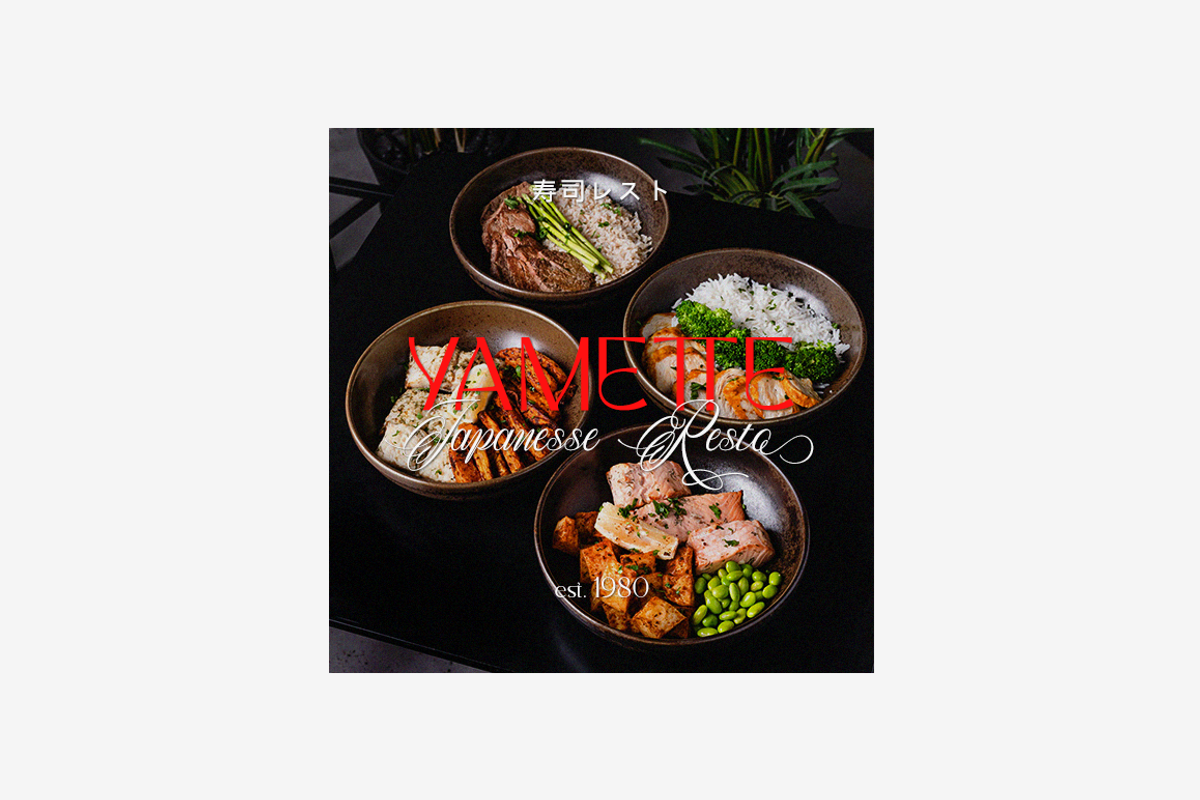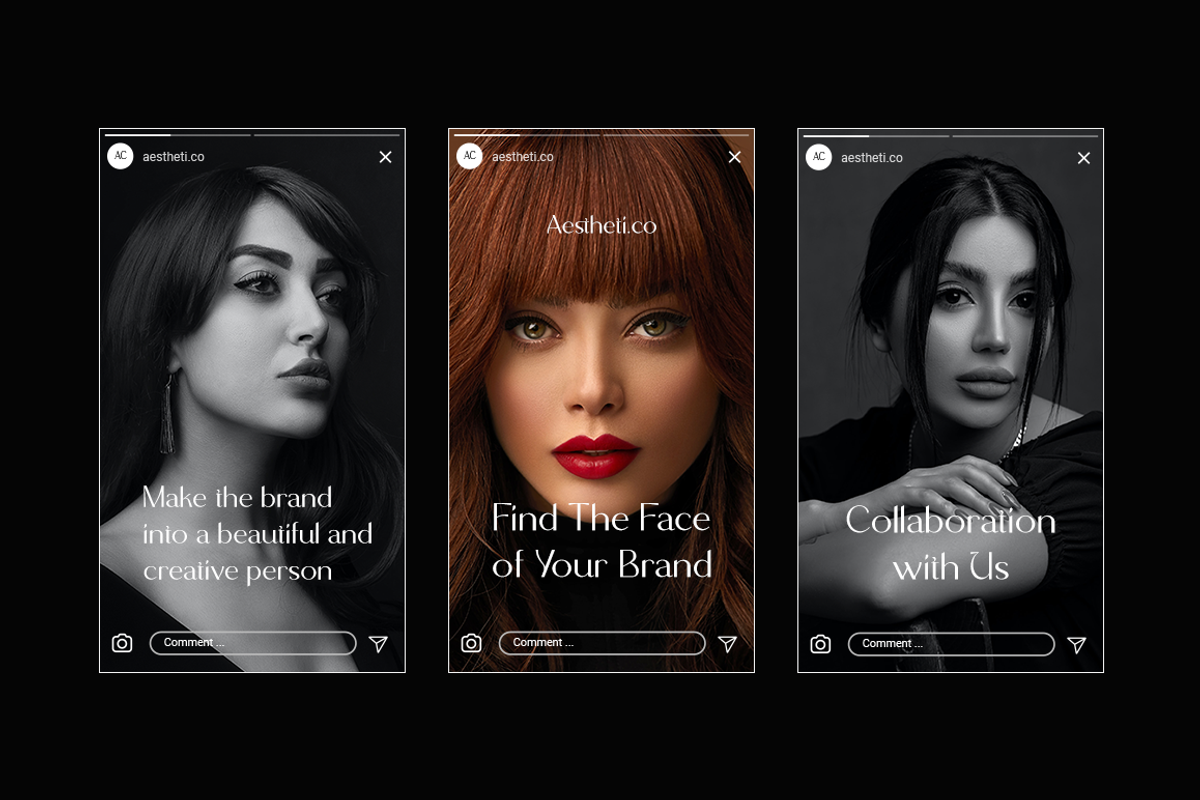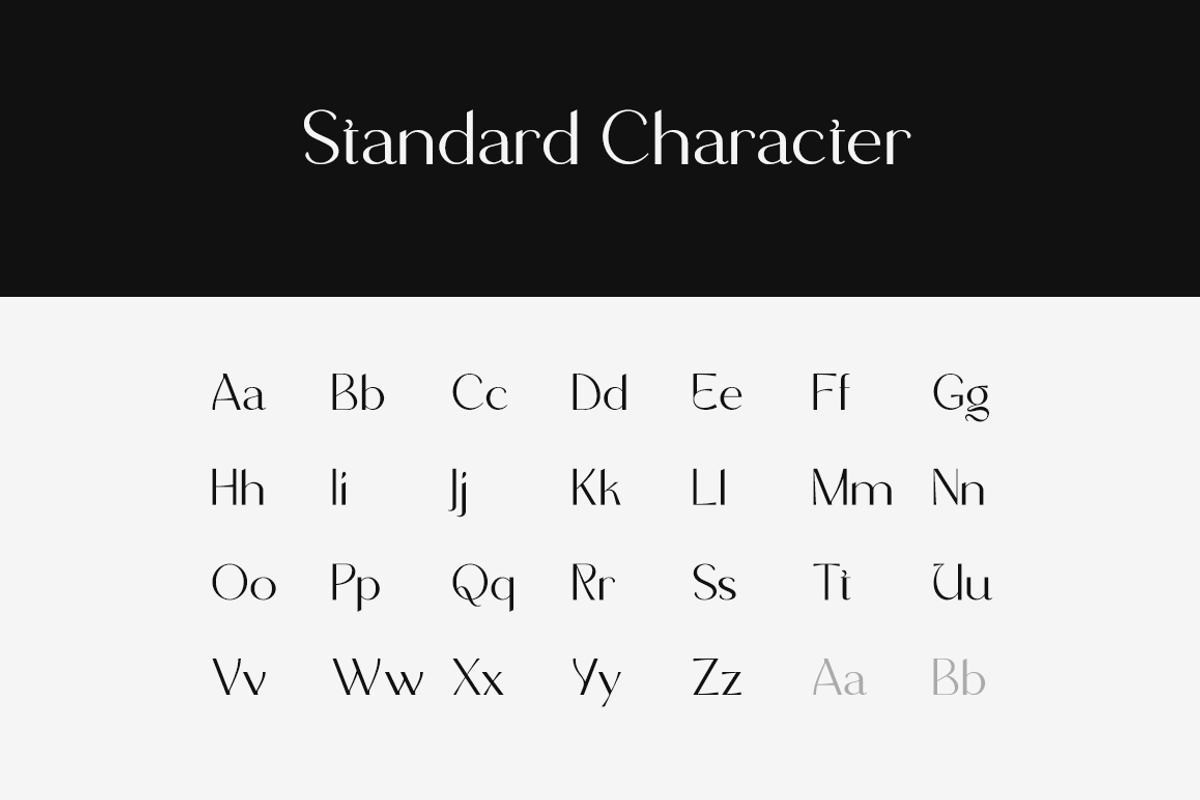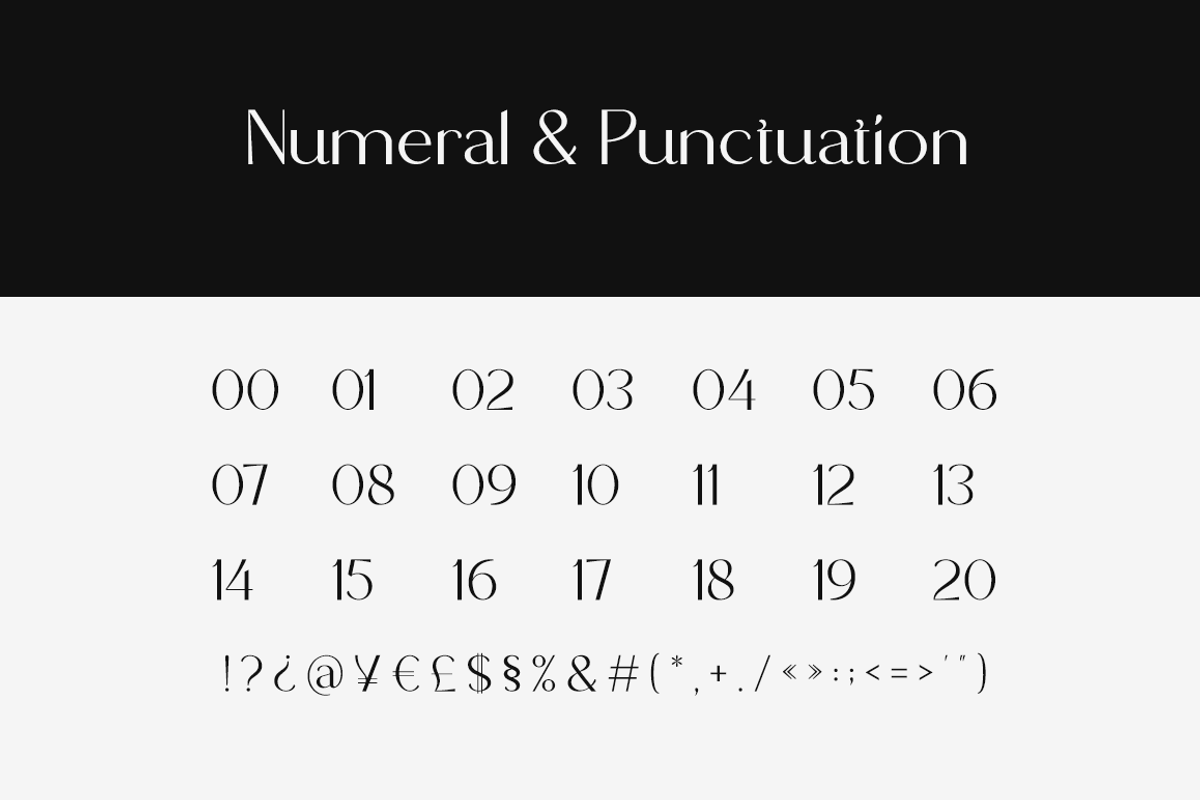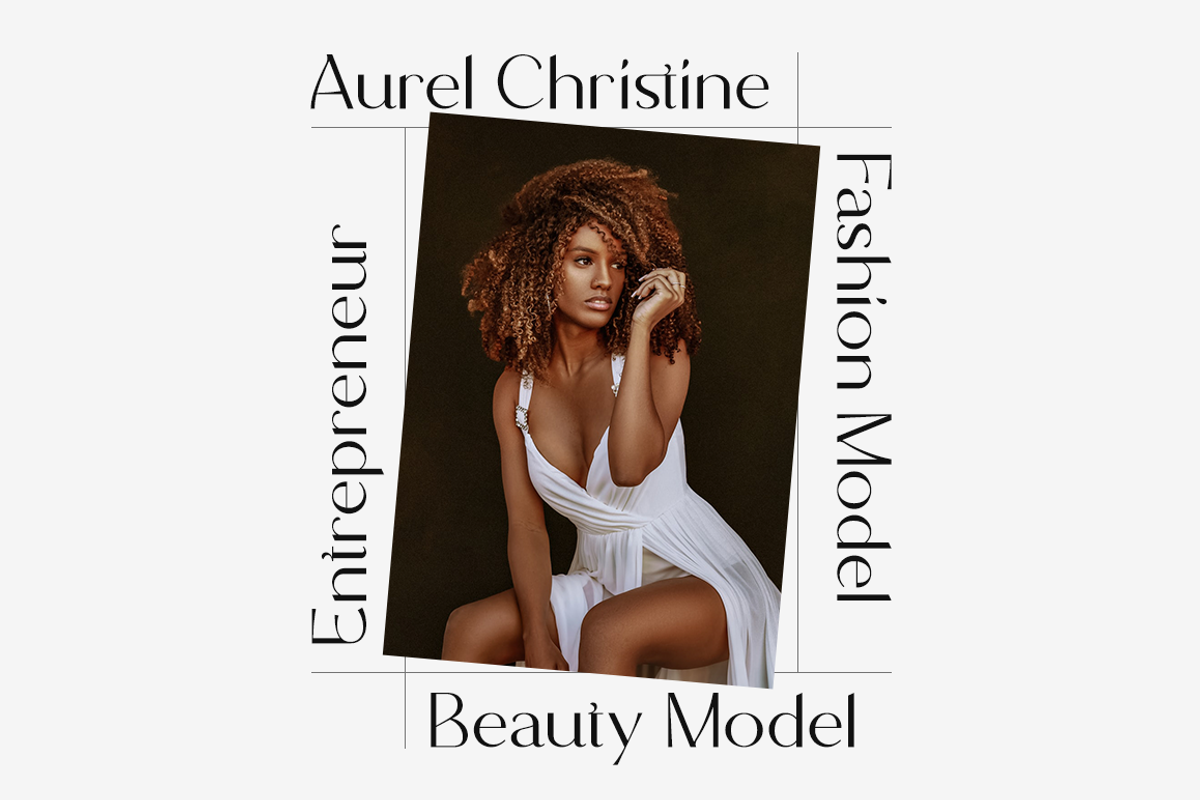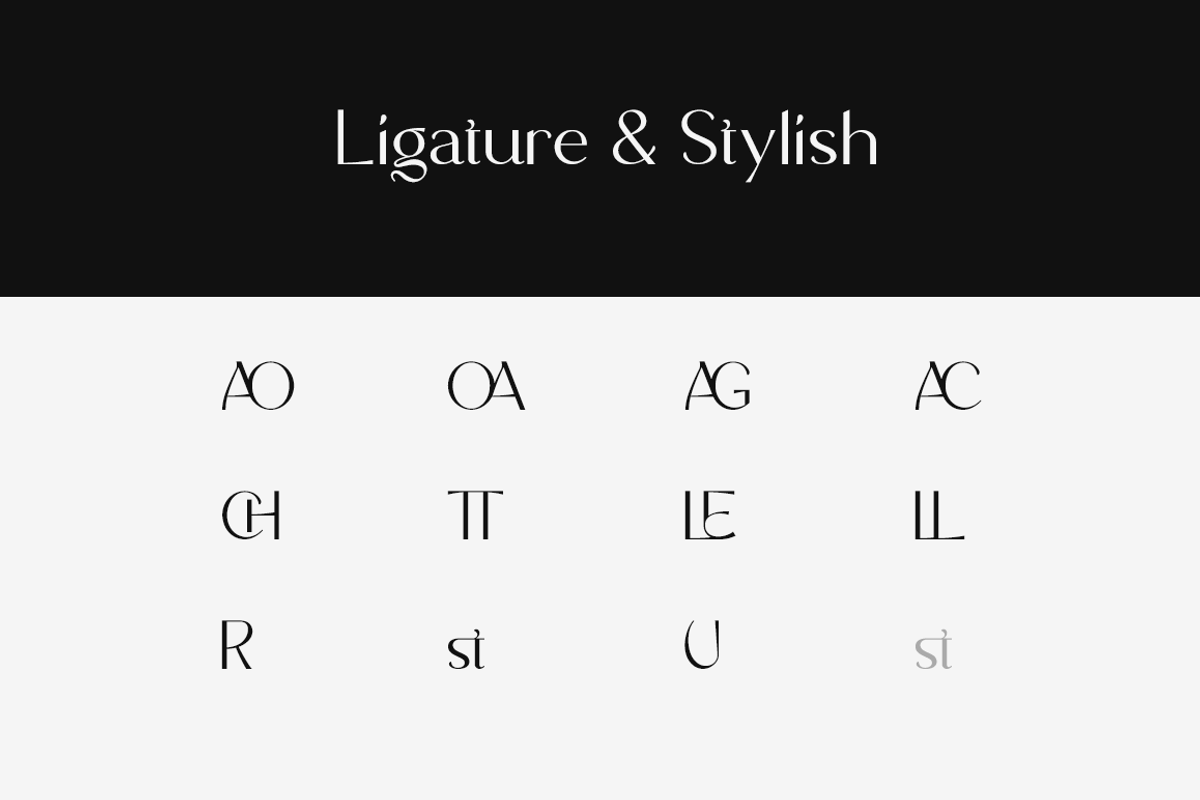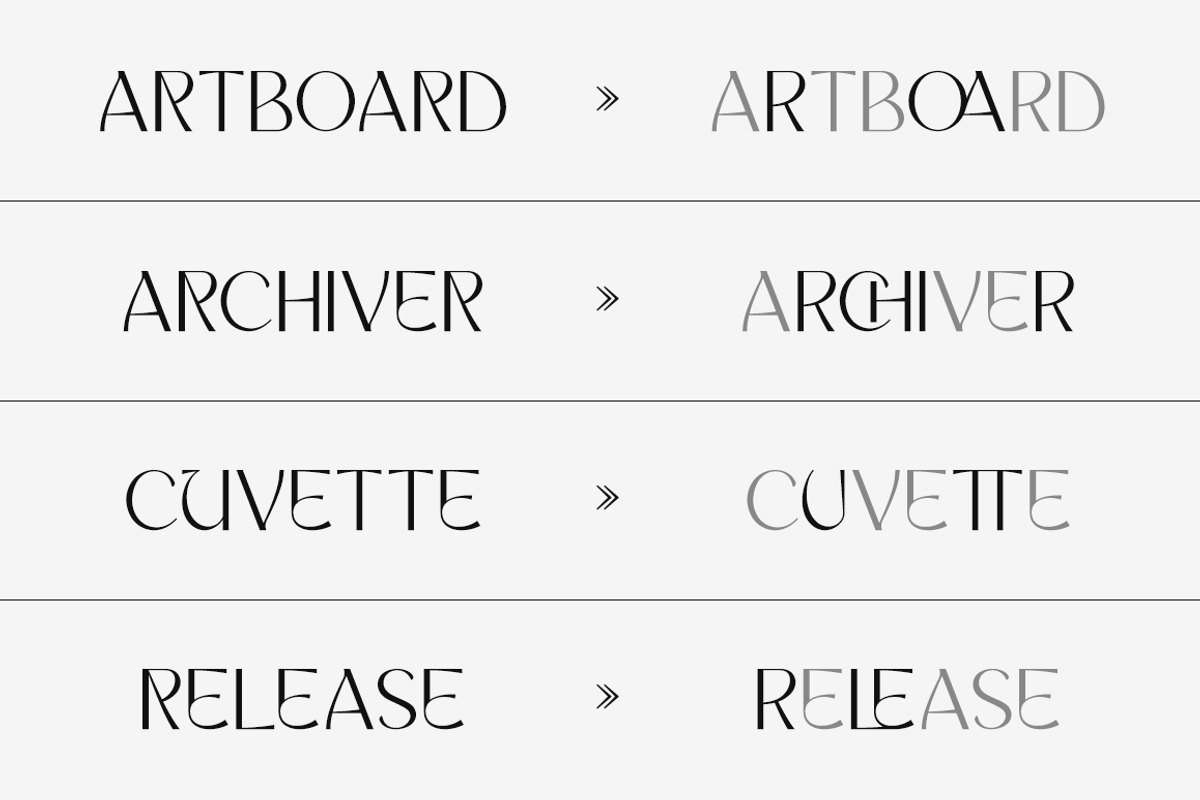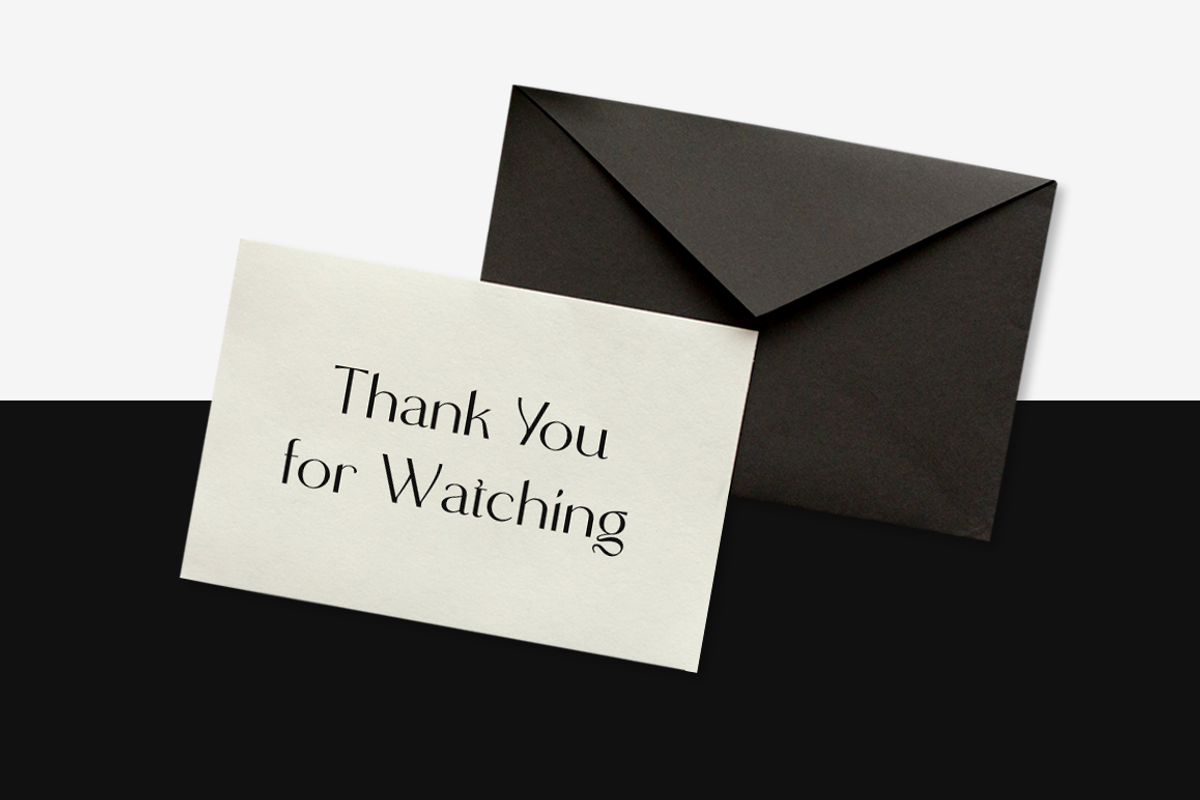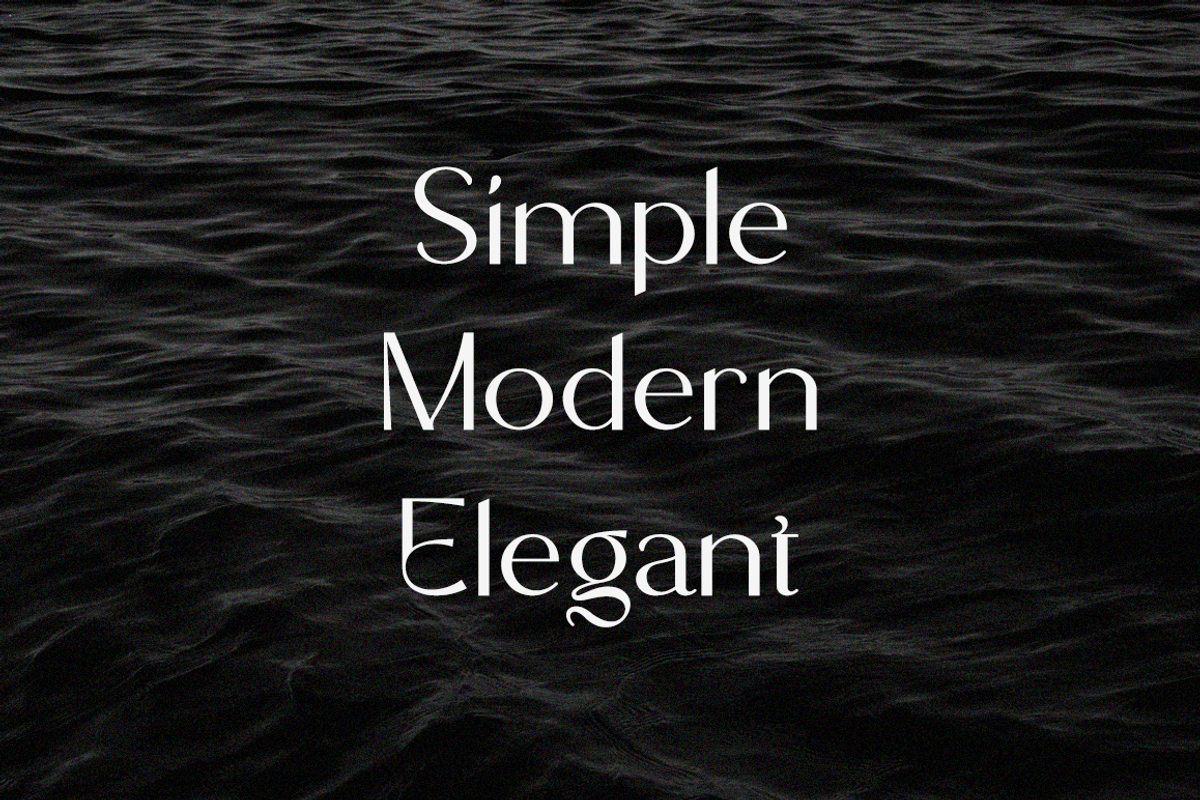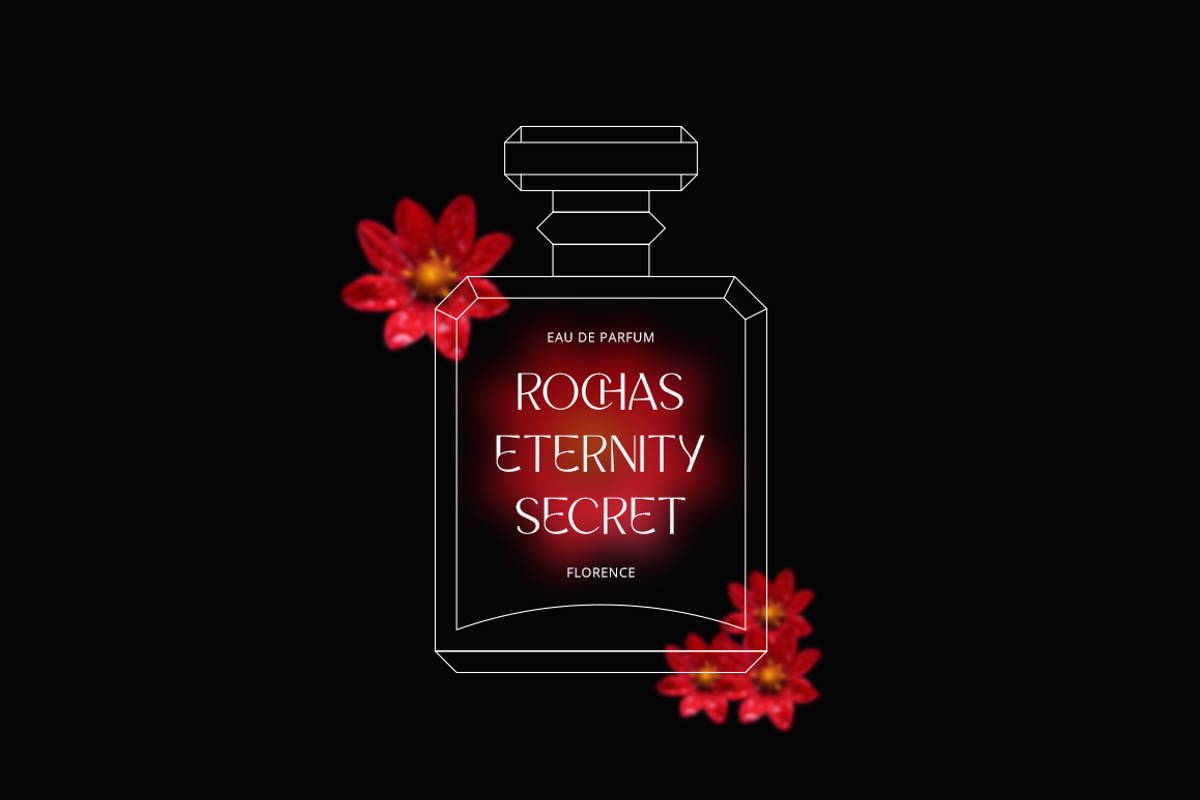
Archattes - Logo Font
Archattes is an elegant and beautiful sans serif font. It will elevate a wide range of crafting ideas, from cards to branding, labels, and many more. Add it to any of your creative projects, and make them look extraordinary!